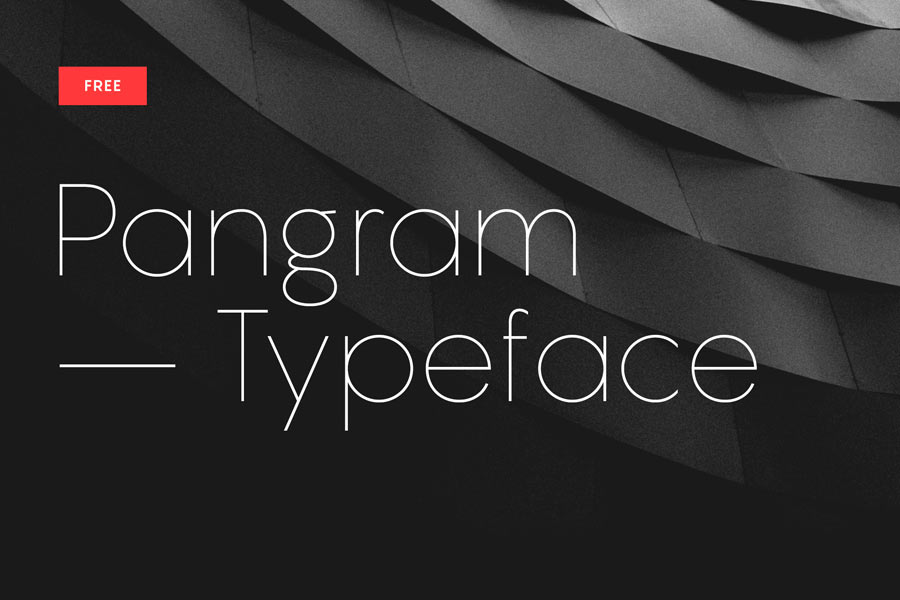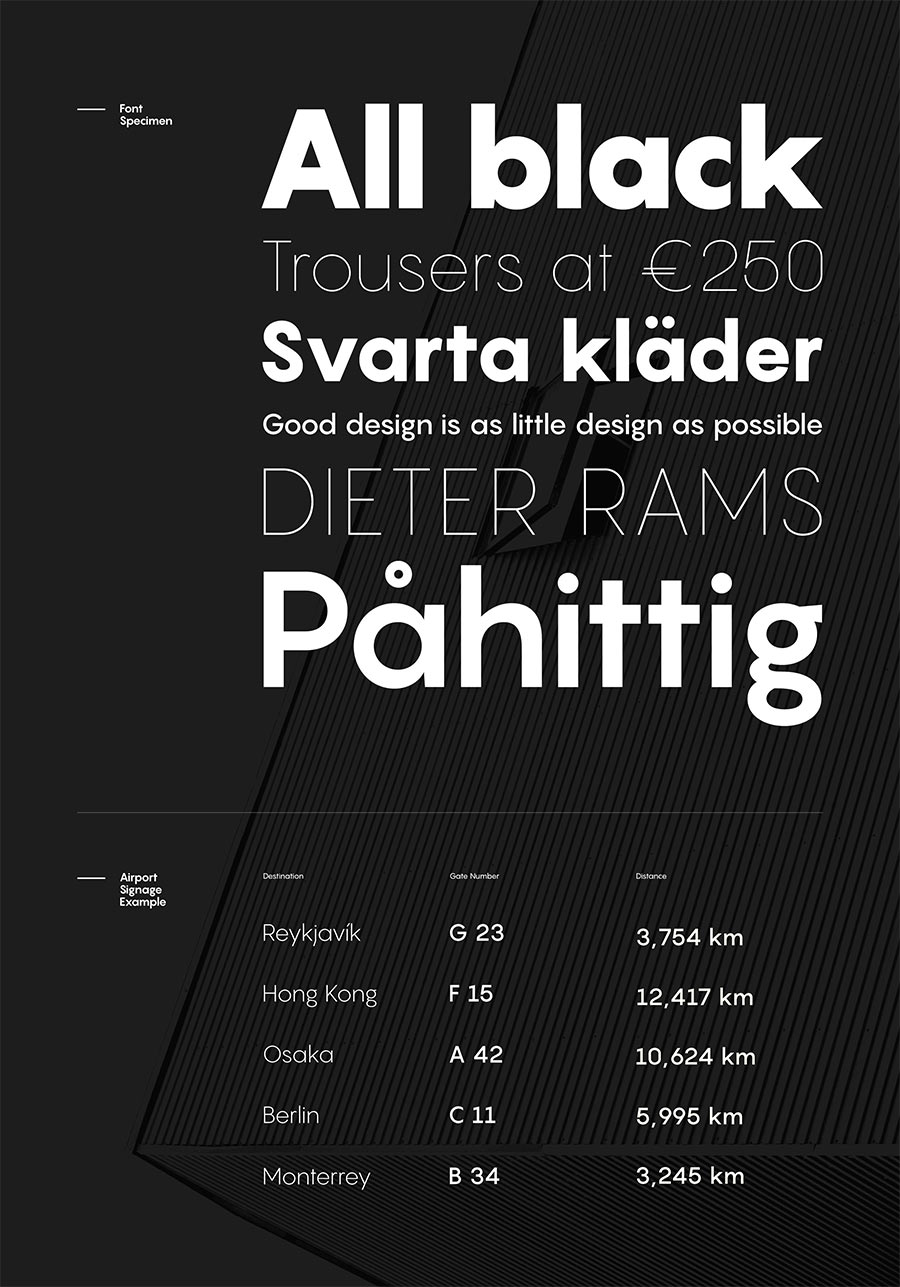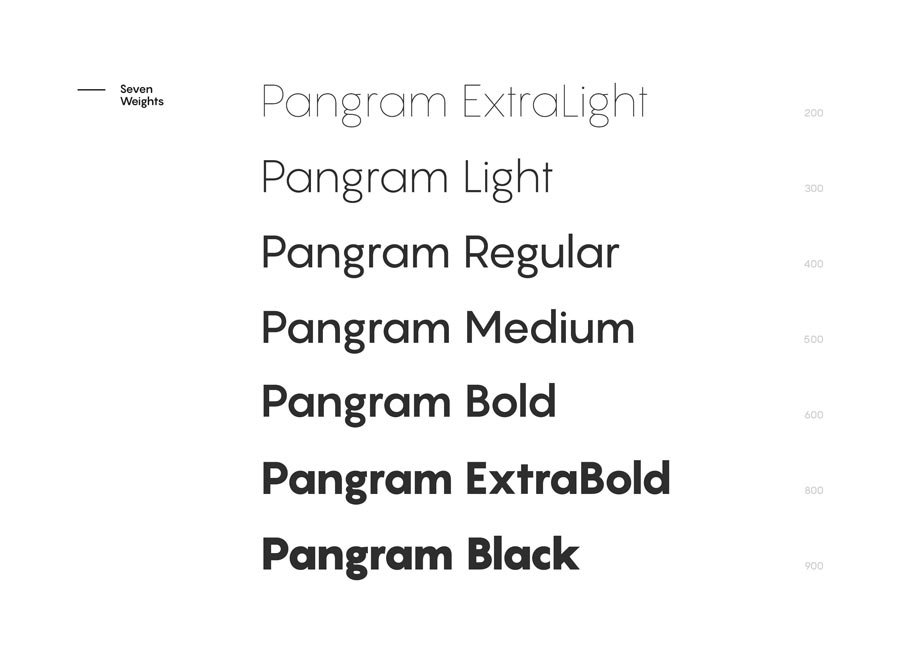
Pangram Sans is a beautifully crafted geometrical sans serif inspired by top geometrical fonts this industry has to offer. Pangram Sans comes with 7 weights with more than 2800 glyphs, it’s perfect for both headline and body text, and it looks particularly great on digital surfaces for web, mobile and Internet of Things like watches etc.
- Designer: Mathieu Desjardins
- Styles: 7
- Category: Sans Serif